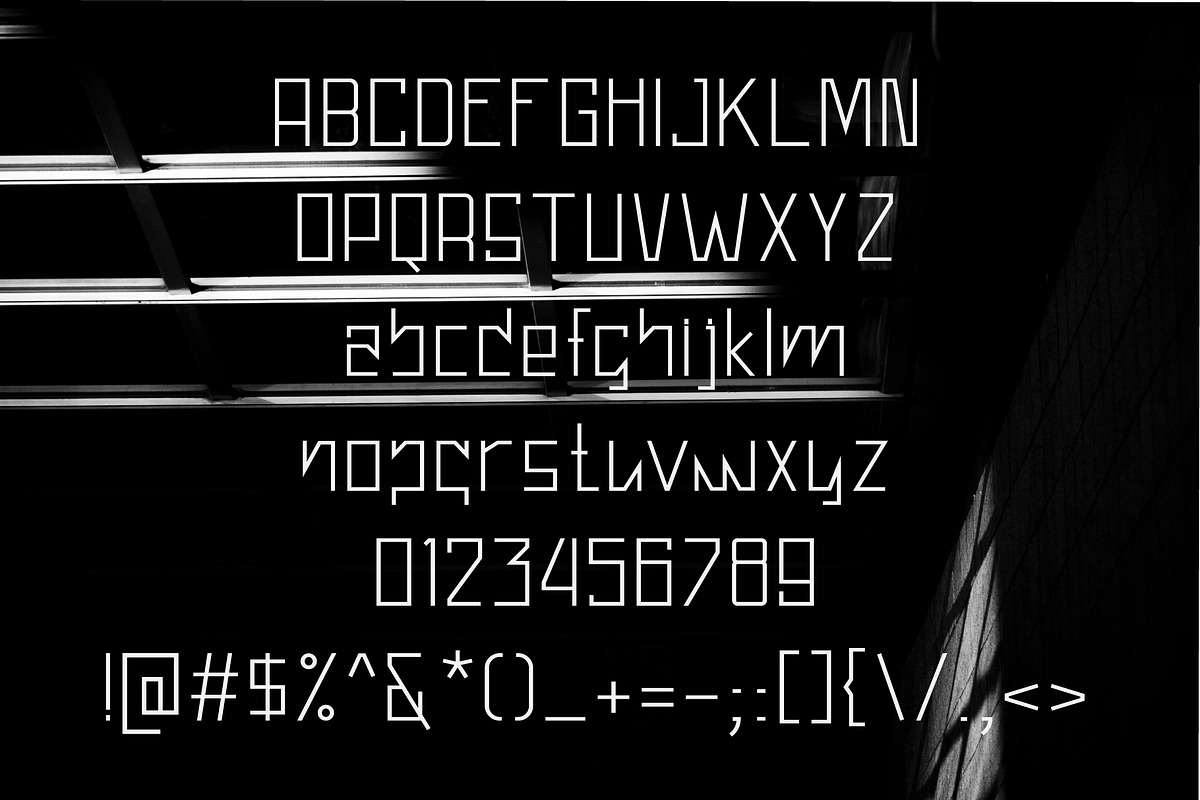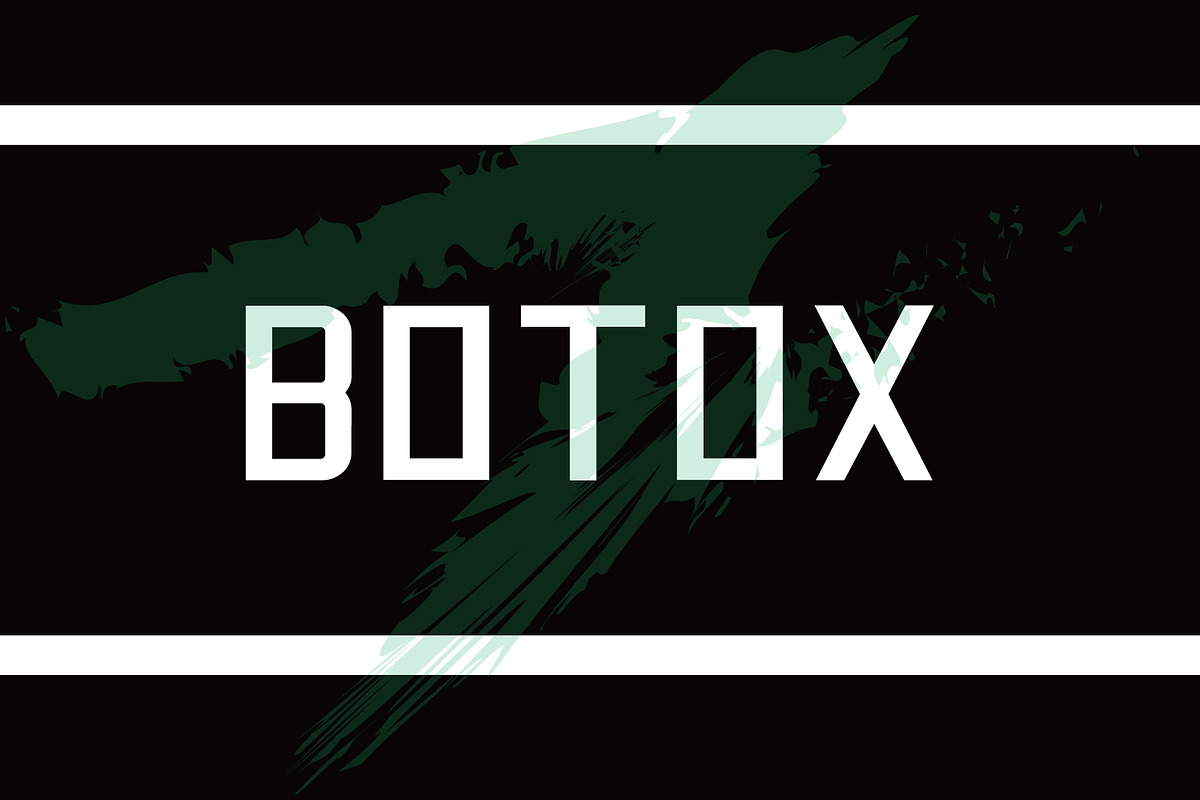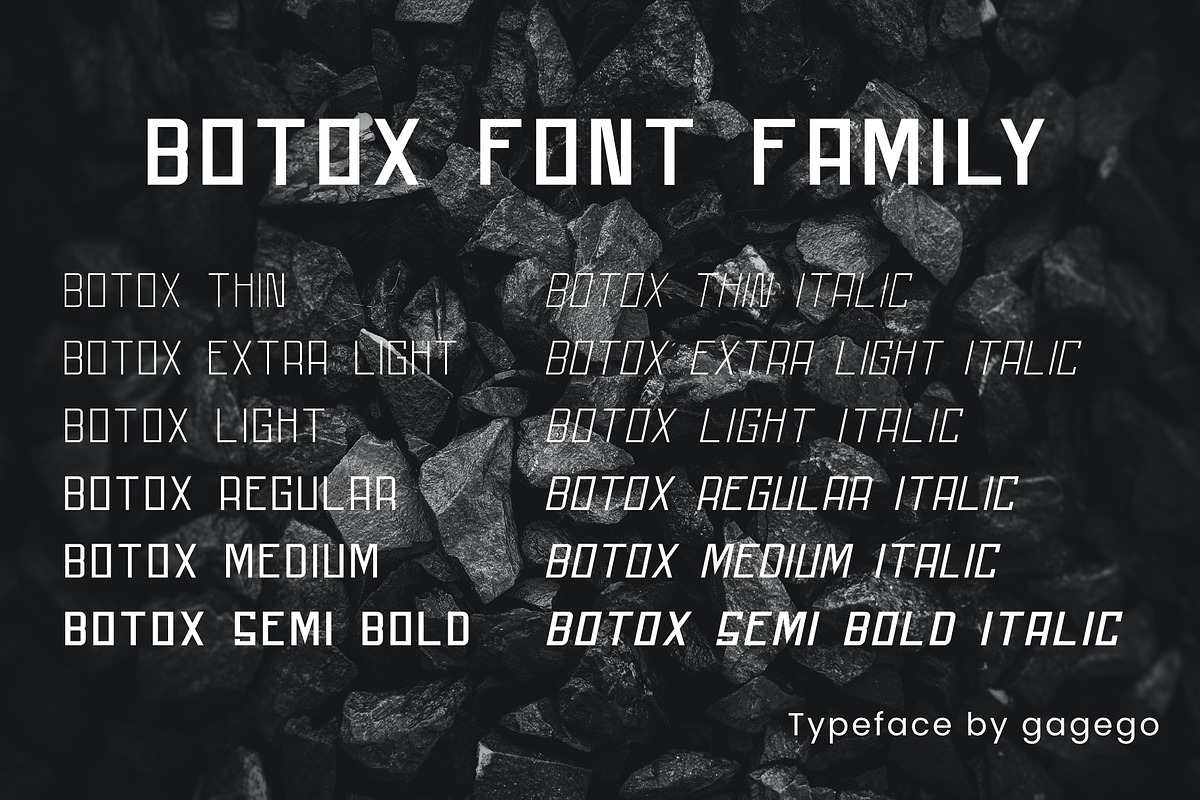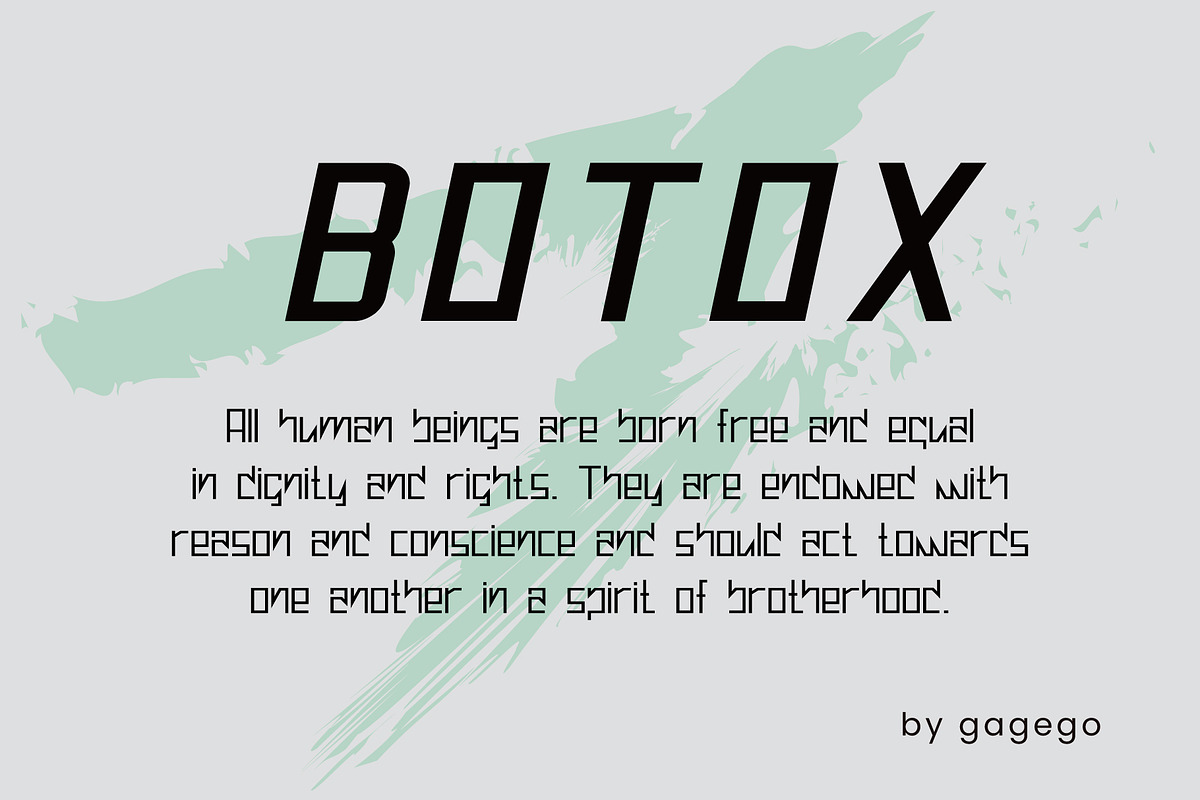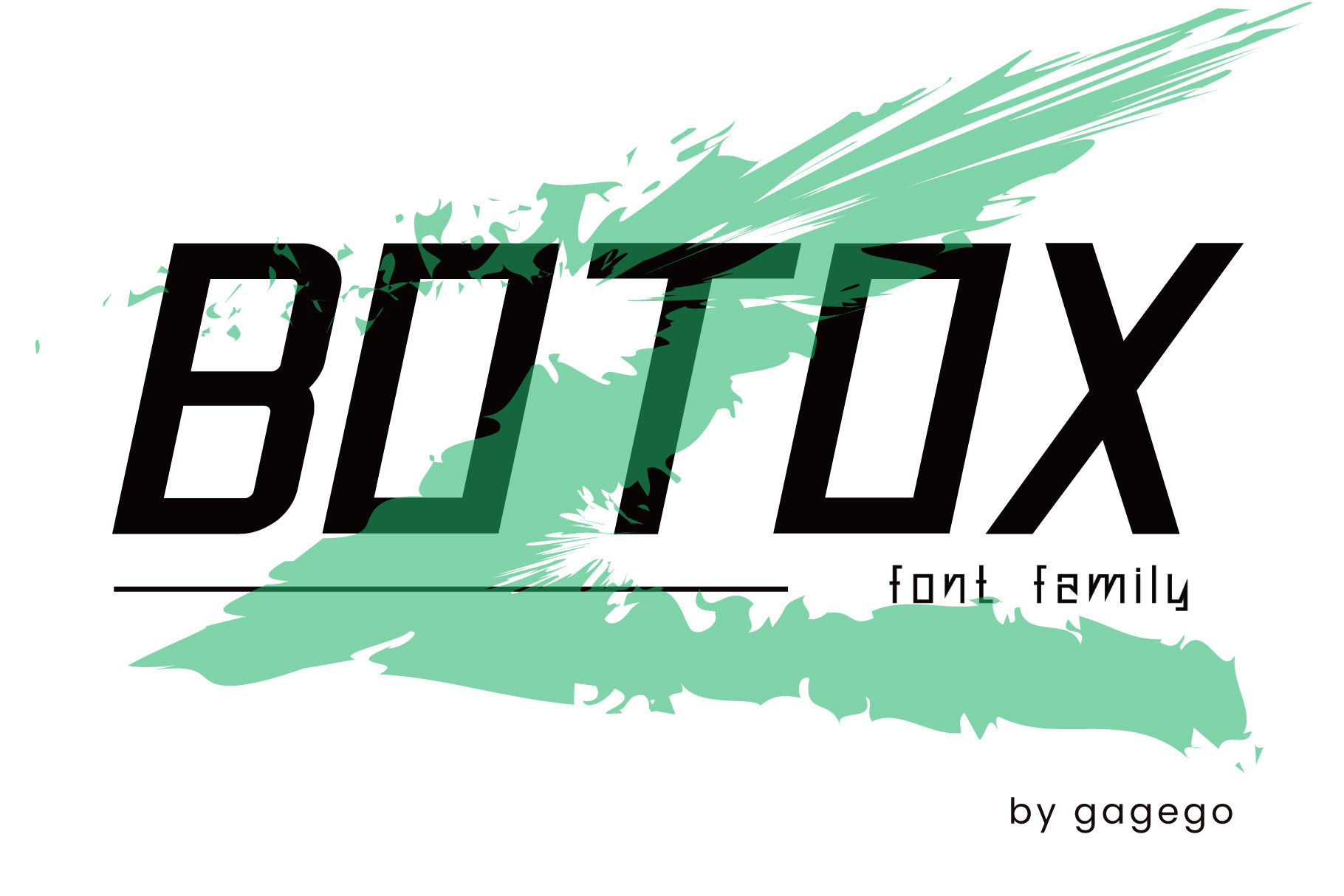
Botox font sans serif
We provide a unique but interesting font, the name of the font is BOTOX FONT. This font only provides uppercase letters, does not provide lowercase letters. This font is suitable for making books or banners and whatever, because this font looks relaxed, happy, happy, and unique. BOTOX FONT is available in several font types
1 Thin 2 extra light 3 Light 4 Regular 5 Medium 6 semi bold